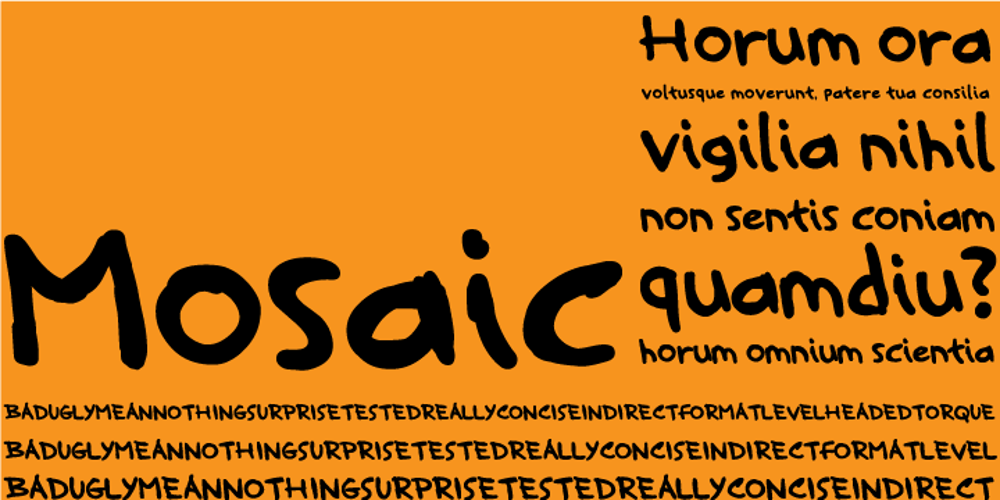
Mosaic
Mosaic font
Mosaic Font Family was designed by Paul O’Connell and published by Paul O’Connell. Mosaic contains 1 styles and family package options. This innovative styled Mosaic font was created to suit various design applications within the typeface market and is aimed at people looking for a modern styled brush script typeface that doesn’t fit in with the regular trends of script fonts. Designed and produced by Paul O’Connell of POCT, it is a slick and light hearted script typeface that reflects many irregularities, but still manages to retain a very balanced and modern feel with just a touch of fun too.